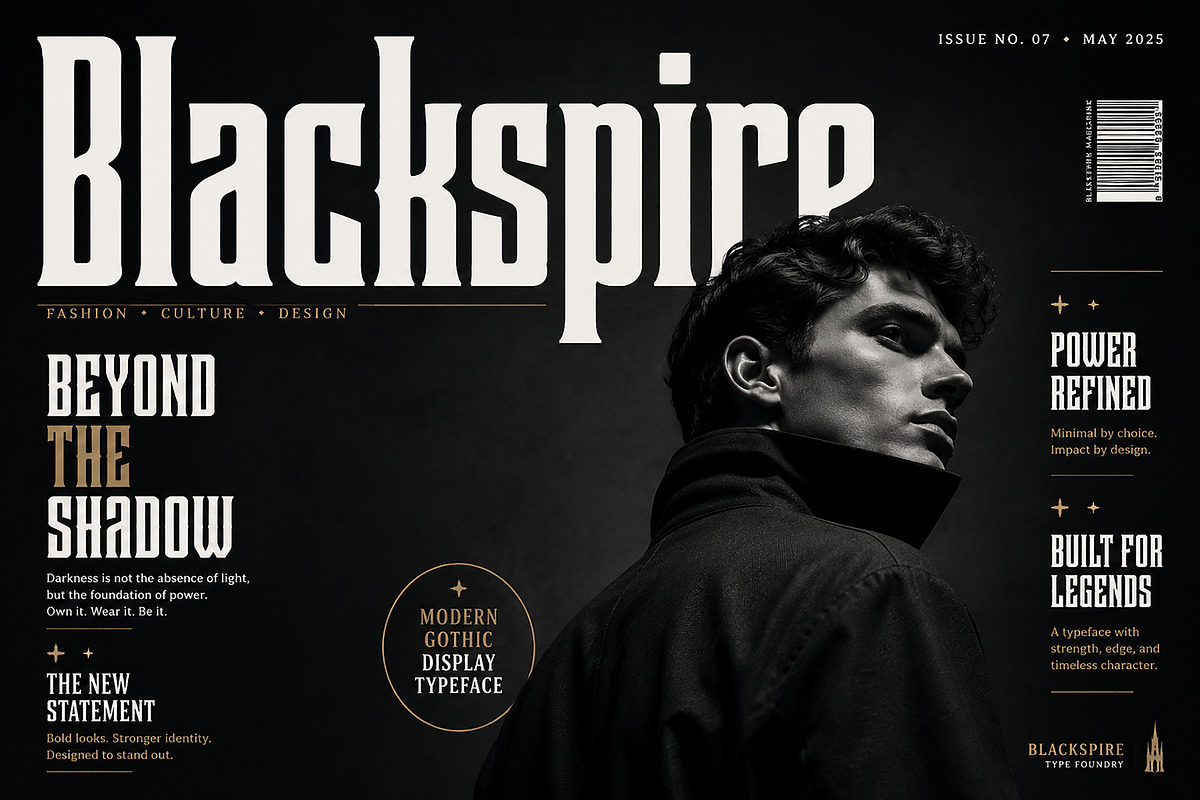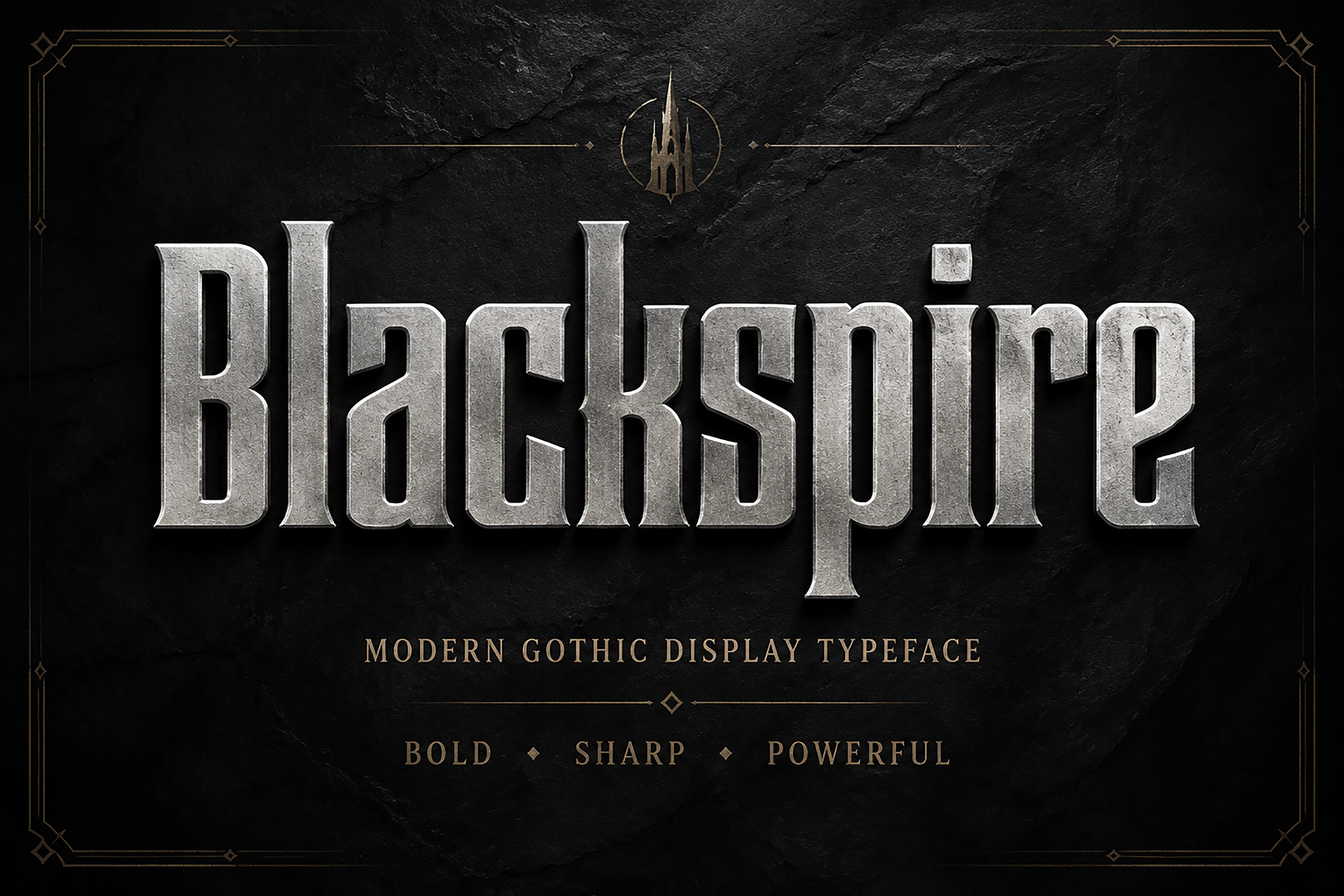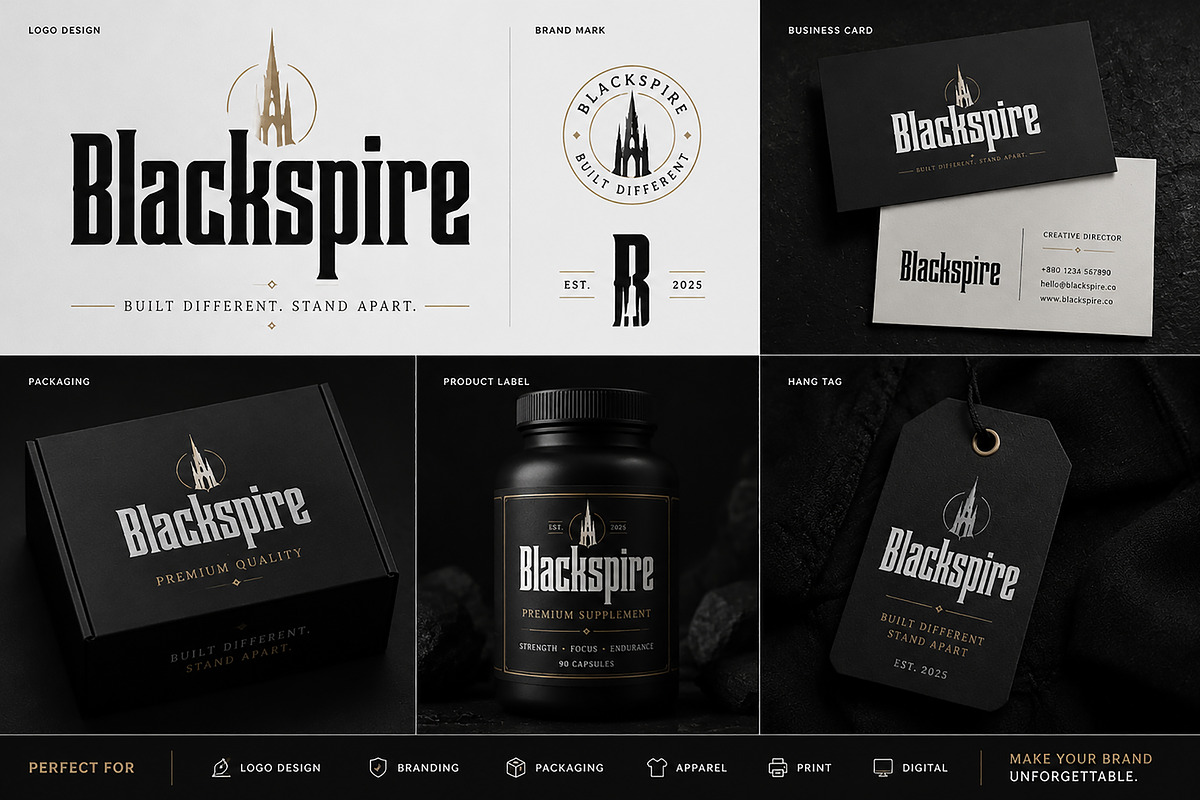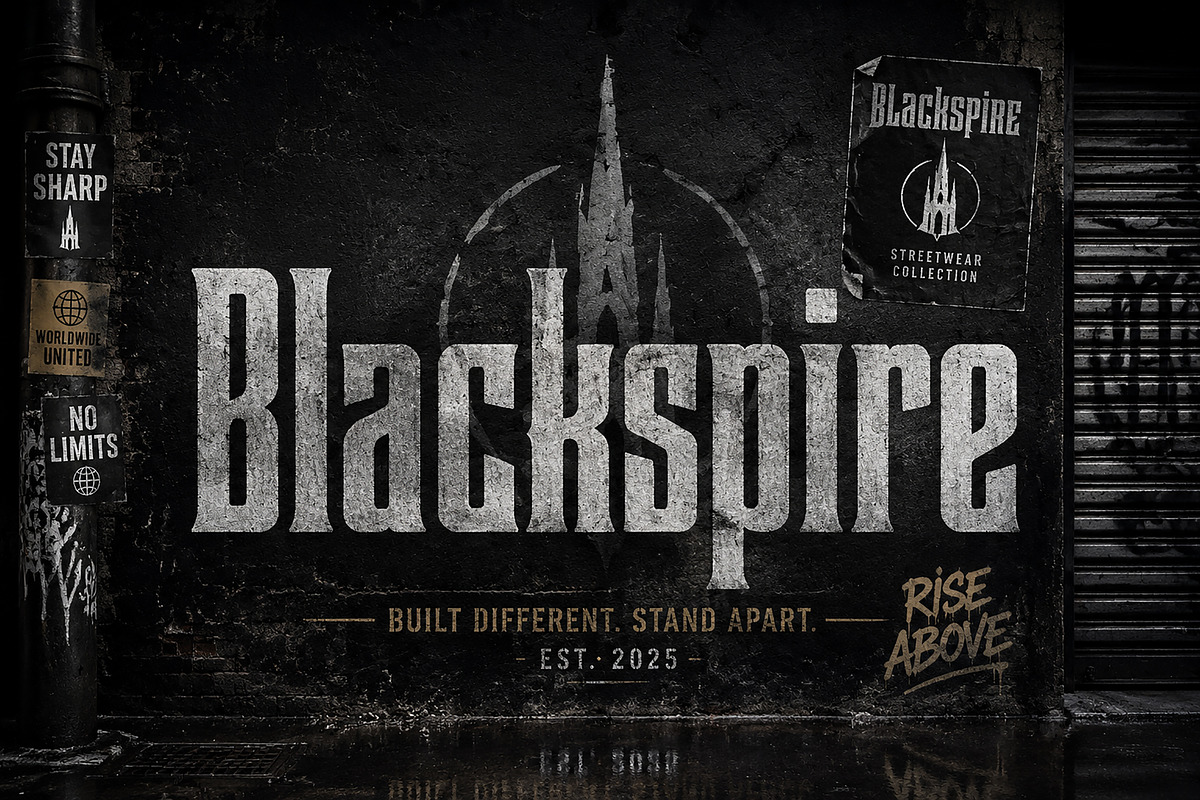
Blackspire – Modern Gothic Typeface
Blackspire – Modern Gothic Display Typeface
Blackspire is a bold and powerful modern gothic display typeface designed for brands that want to create a strong visual impact. With its sharp edges, condensed structure, and dramatic character, Blackspire delivers a premium and fearless aesthetic perfect for luxury branding, fashion projects, posters, editorial designs, and impactful visual identities.
Inspired by gothic architecture, dark aesthetics, and modern street culture, Blackspire combines classic gothic influence with a contemporary display style. Its strong presence makes it ideal for creating memorable logos, headlines, apparel graphics, album covers, packaging designs, and promotional artwork.
Whether you are designing a luxury brand identity, a bold campaign poster, or an edgy creative project, Blackspire brings a distinctive personality and professional look to your designs.
Brand Identity
Luxury Branding
Fashion & Apparel Design
Streetwear Graphics
Magazine Covers
Editorial Layouts
Poster Design
Album Covers
Gaming & Esports Branding
Advertising Campaigns
Modern Gothic Display Typeface
Bold & Powerful Letterforms
Strong Visual Impact
Premium Editorial Style
Perfect for Headlines and Branding
High-Quality Vector Glyph Design
Blackspire is a modern gothic display font featuring bold, sharp, and powerful letterforms. Perfect for luxury branding, fashion, posters, logos, editorial designs, streetwear, and premium visual identities.